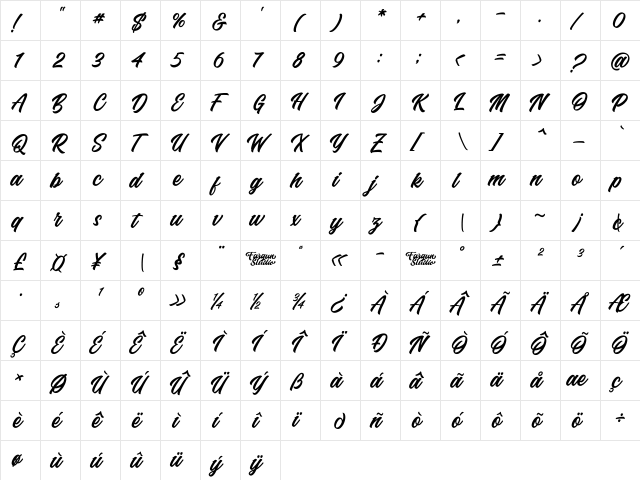
Quicken Demo Regular
| Foundry | Fargun Studio |
| Designer | Fargun Studio |
Design Context for Quicken Demo Typeface
Quicken Demo is a composed and adaptable typeface that performs quietly and consistently across a wide range of design contexts.